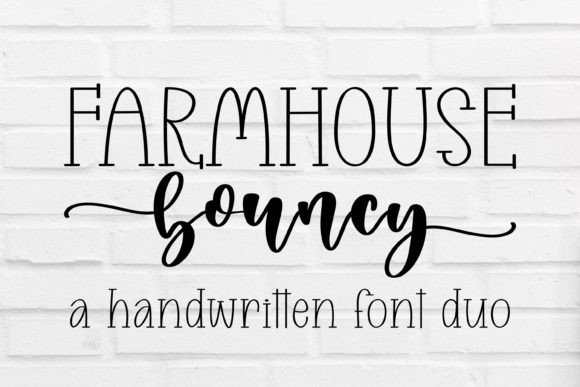
Introducing Farmhouse Bouncy Font, the ultimate script font that exudes charm and delicacy. Created by BitongType, this duo-styled handwritten font is designed to transform your creative ideas into extraordinary masterpieces. With its captivating appeal, Farmhouse Bouncy Font is a must-have for anyone looking to elevate their designs and captivate their audience.
Crafted with meticulous attention to detail, Farmhouse Bouncy Font is the perfect choice for various occasions. Whether you're creating stunning Christmas cards, elegant wedding designs, eye-catching logos, or memorable branding materials, this font will add a touch of elegance and uniqueness to your projects. Its versatile nature allows it to seamlessly blend with any theme or concept, ensuring your designs stand out from the crowd.
One of the standout features of Farmhouse Bouncy Font is its ability to enhance quotes and typography projects. With its handwritten aesthetic, this font adds a personal and heartfelt touch to any message. Whether you're designing motivational posters, inspirational quotes, or customized birthday cards, Farmhouse Bouncy Font will bring your words to life with its charming and expressive style.
Looking to create eye-catching signage for your local business? Look no further. Farmhouse Bouncy Font is the perfect choice to grab attention and leave a lasting impression. Its playful curves and unique strokes make it ideal for creating captivating signs that will draw in customers and make your business stand out from the competition.
Farmhouse Bouncy Font is not just a font; it's a creative tool that unlocks endless possibilities. With its versatility and captivating nature, you can explore various design avenues and unleash your imagination. Let this font be your companion in creating stunning photography projects, memorable logos, and breathtaking designs that will leave a lasting impact on your audience.
In conclusion, Farmhouse Bouncy Font is the ultimate choice for those seeking a script font that combines charm, delicacy, and versatility. It's the perfect companion for any creative endeavor, whether you're designing for Christmas, weddings, branding, or simply expressing yourself through personalized projects. Download Farmhouse Bouncy Font today and witness the transformation of your designs into awe-inspiring works of art.